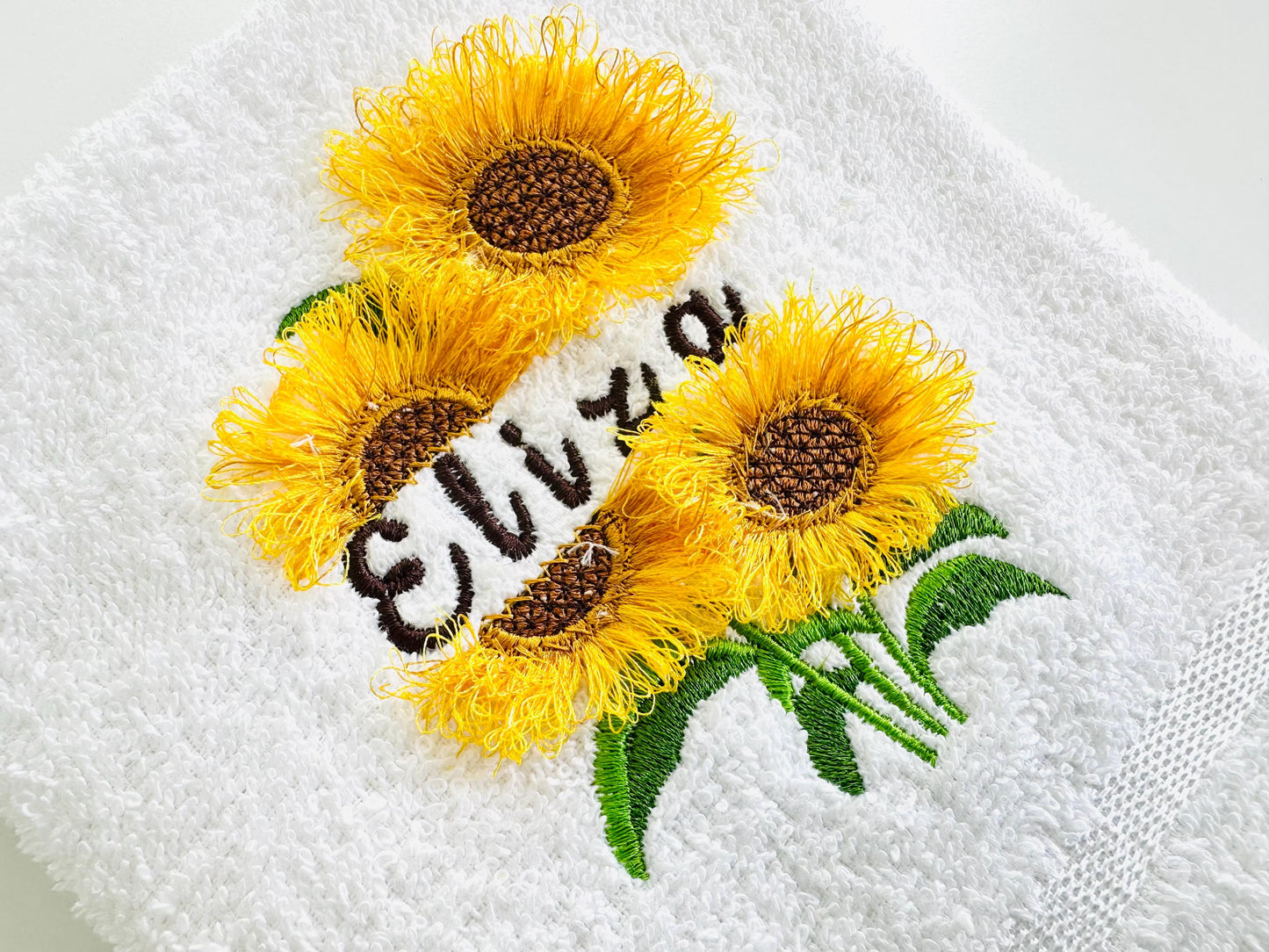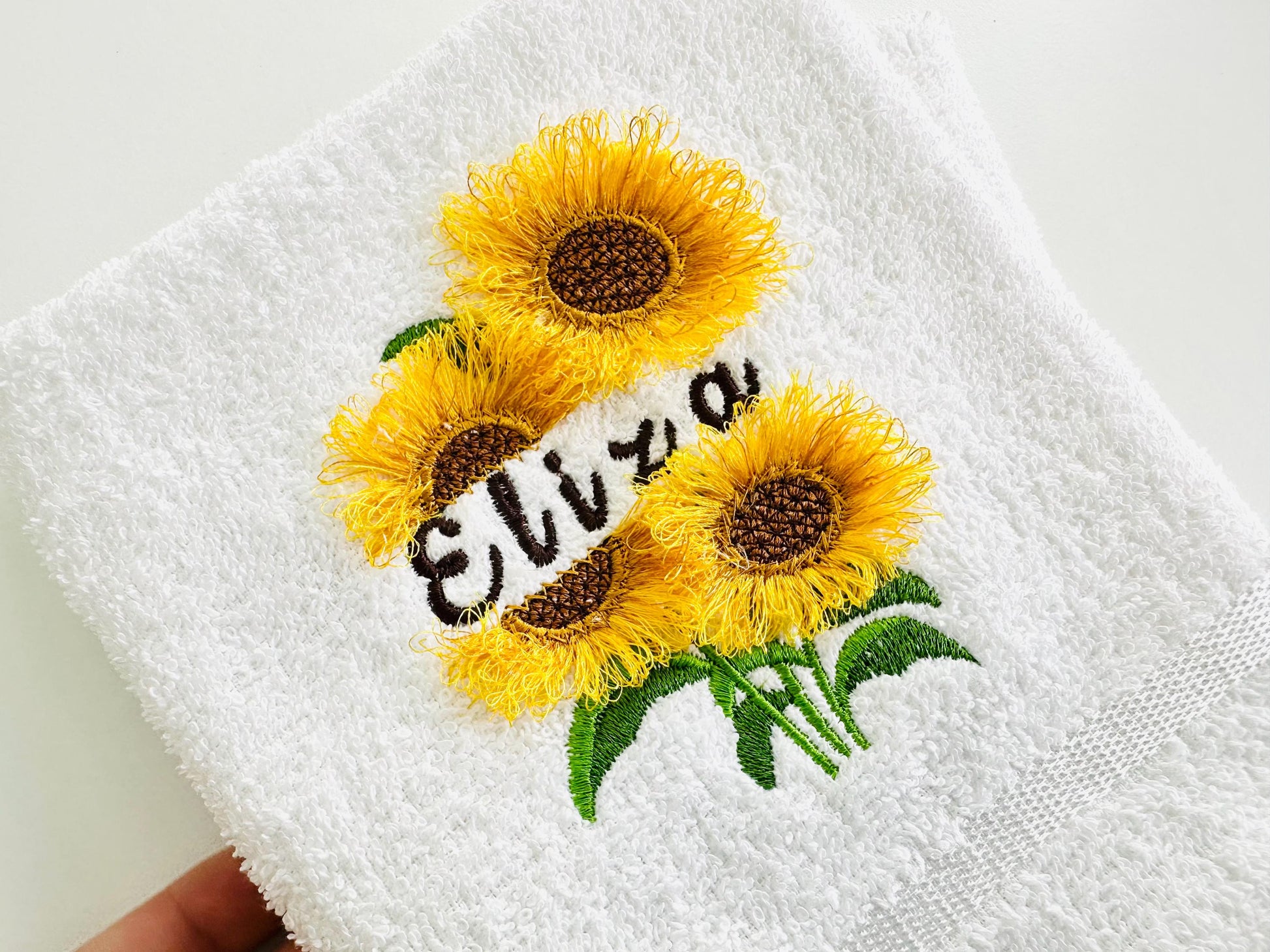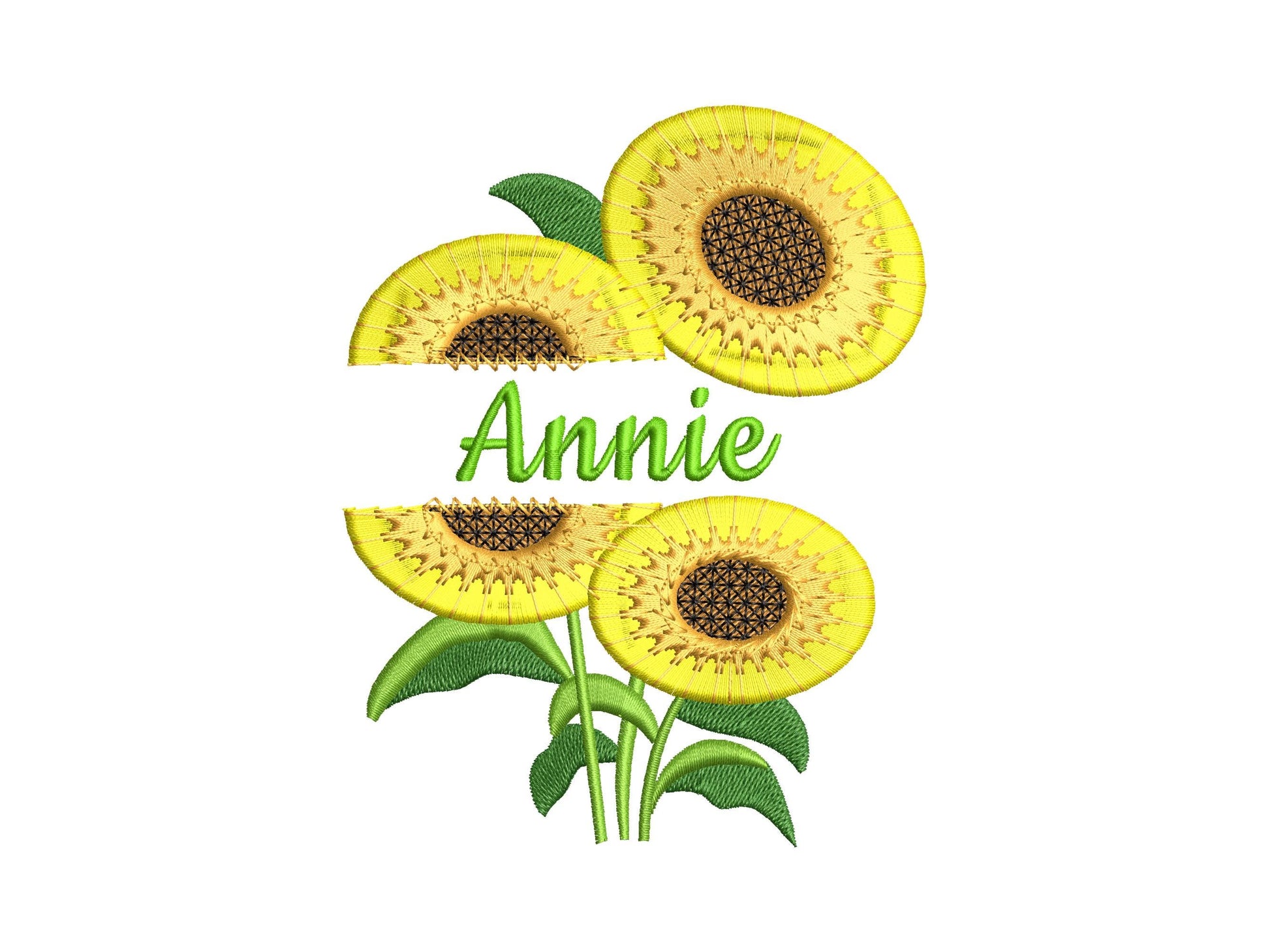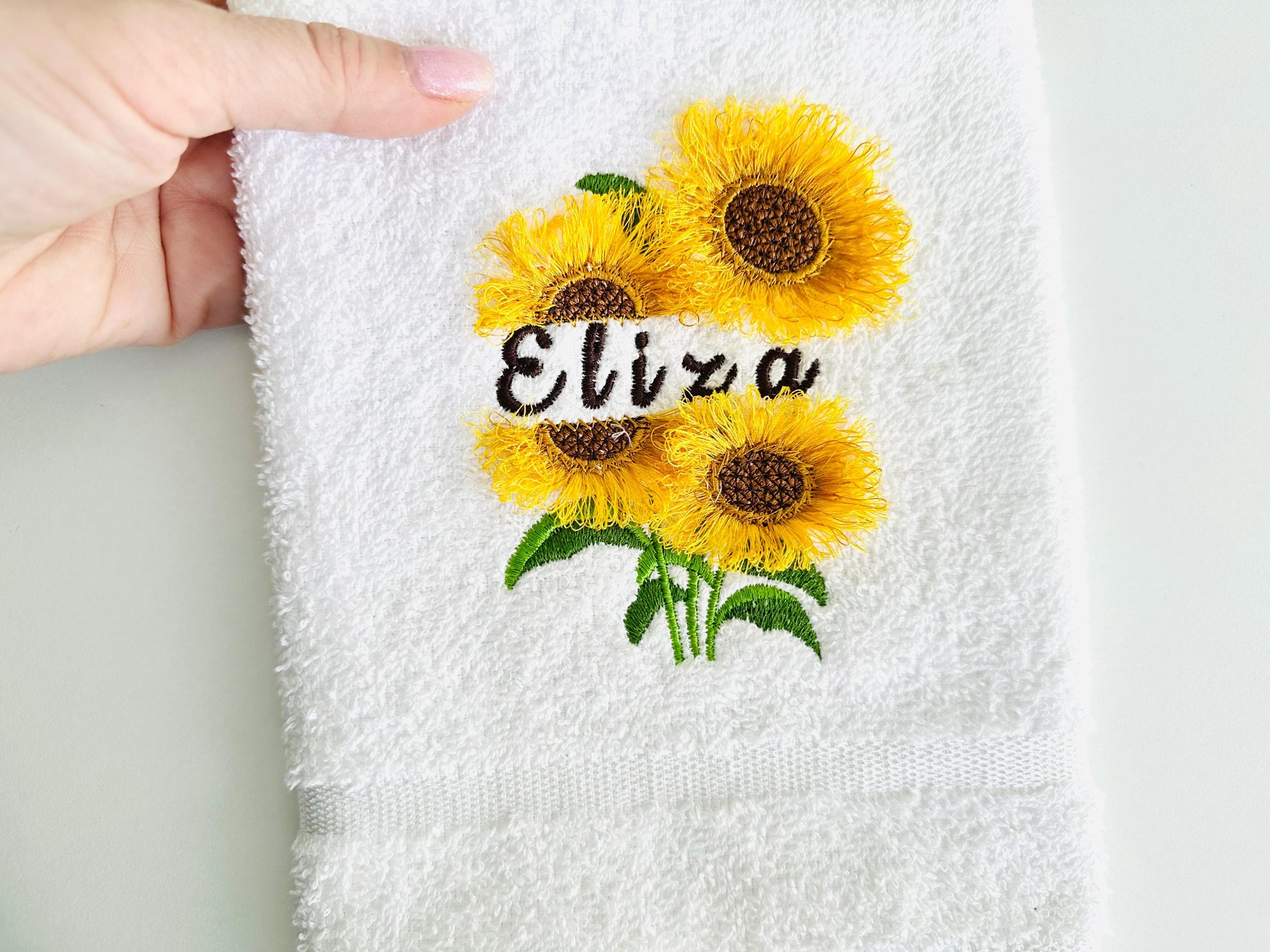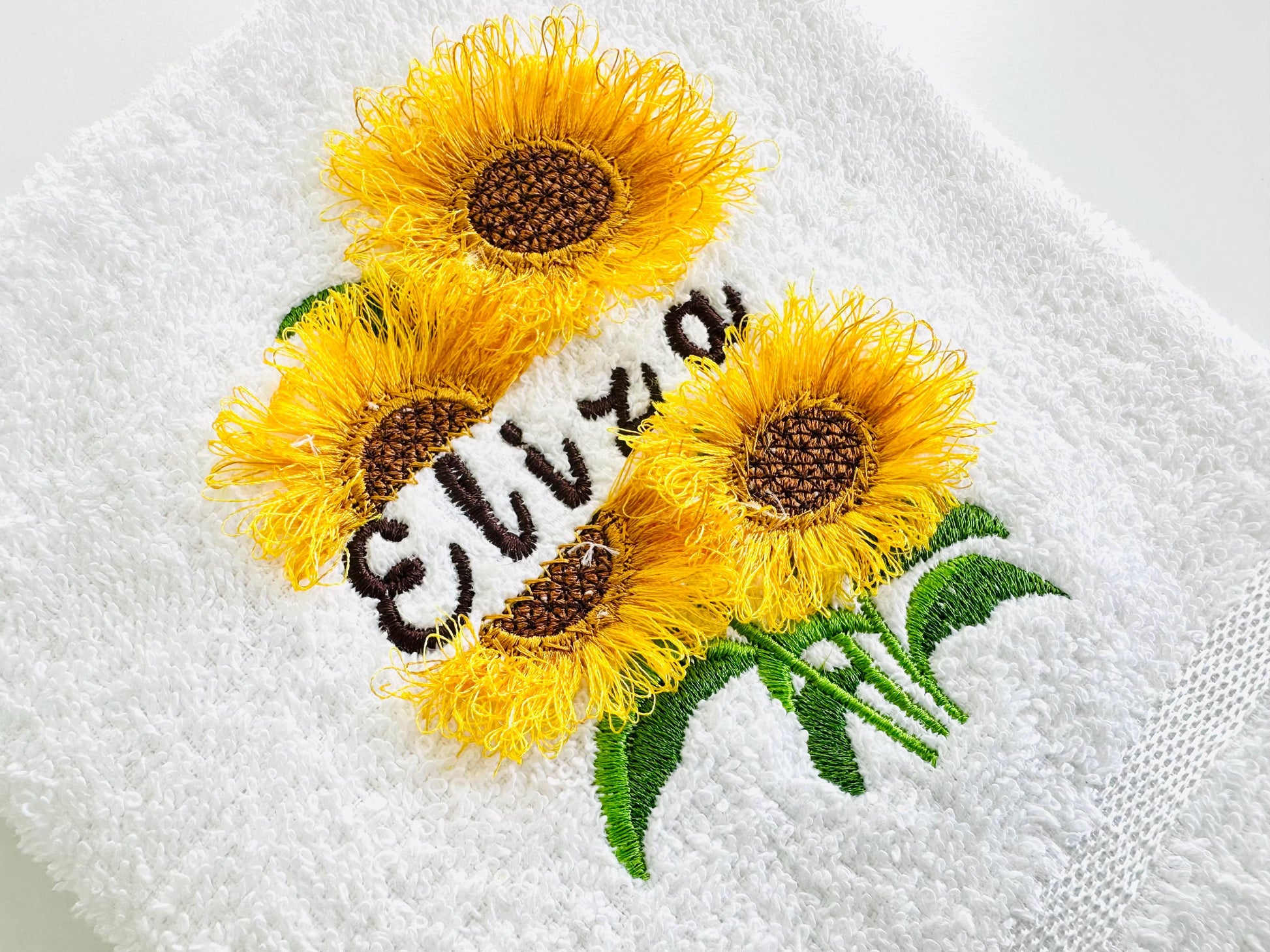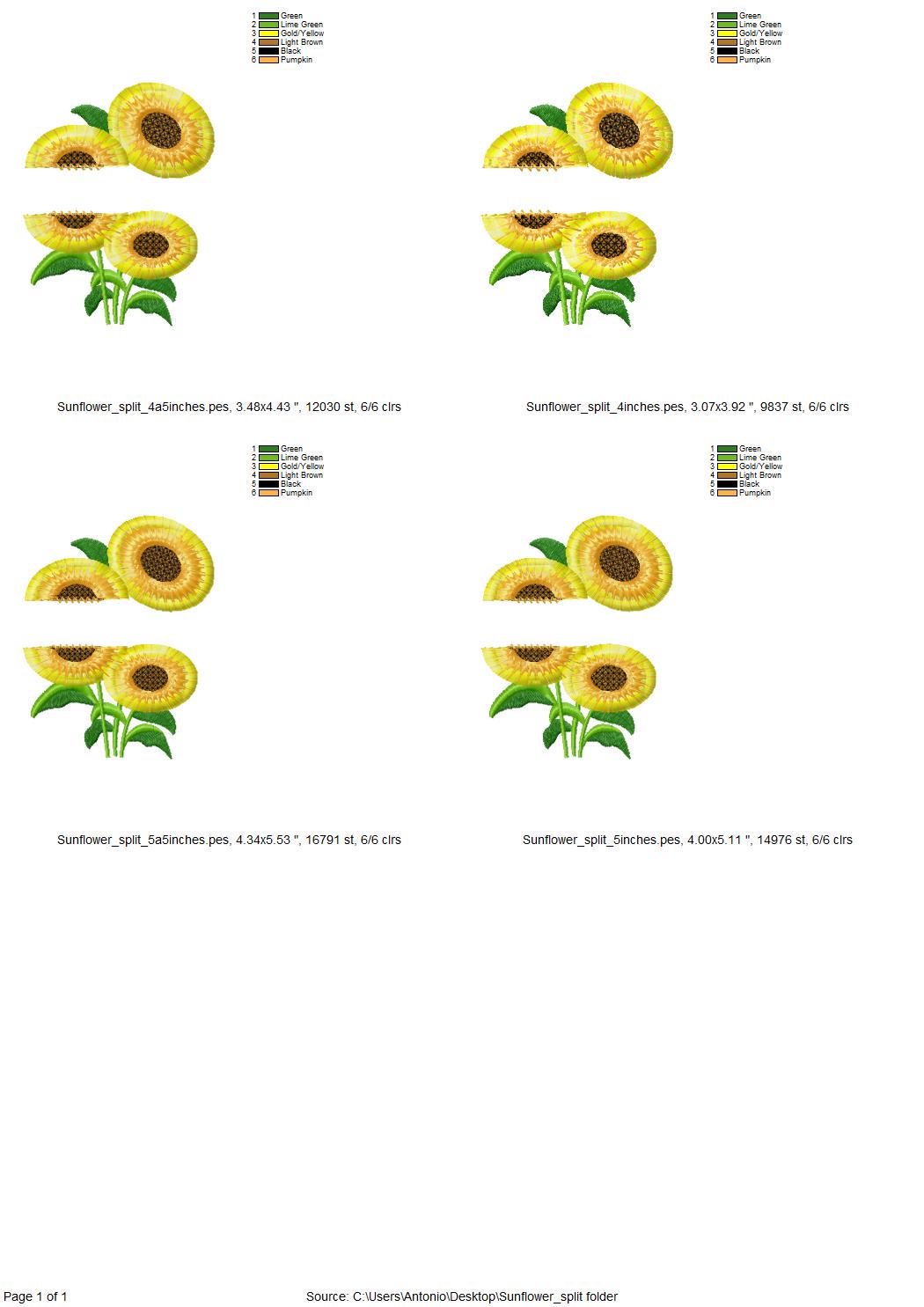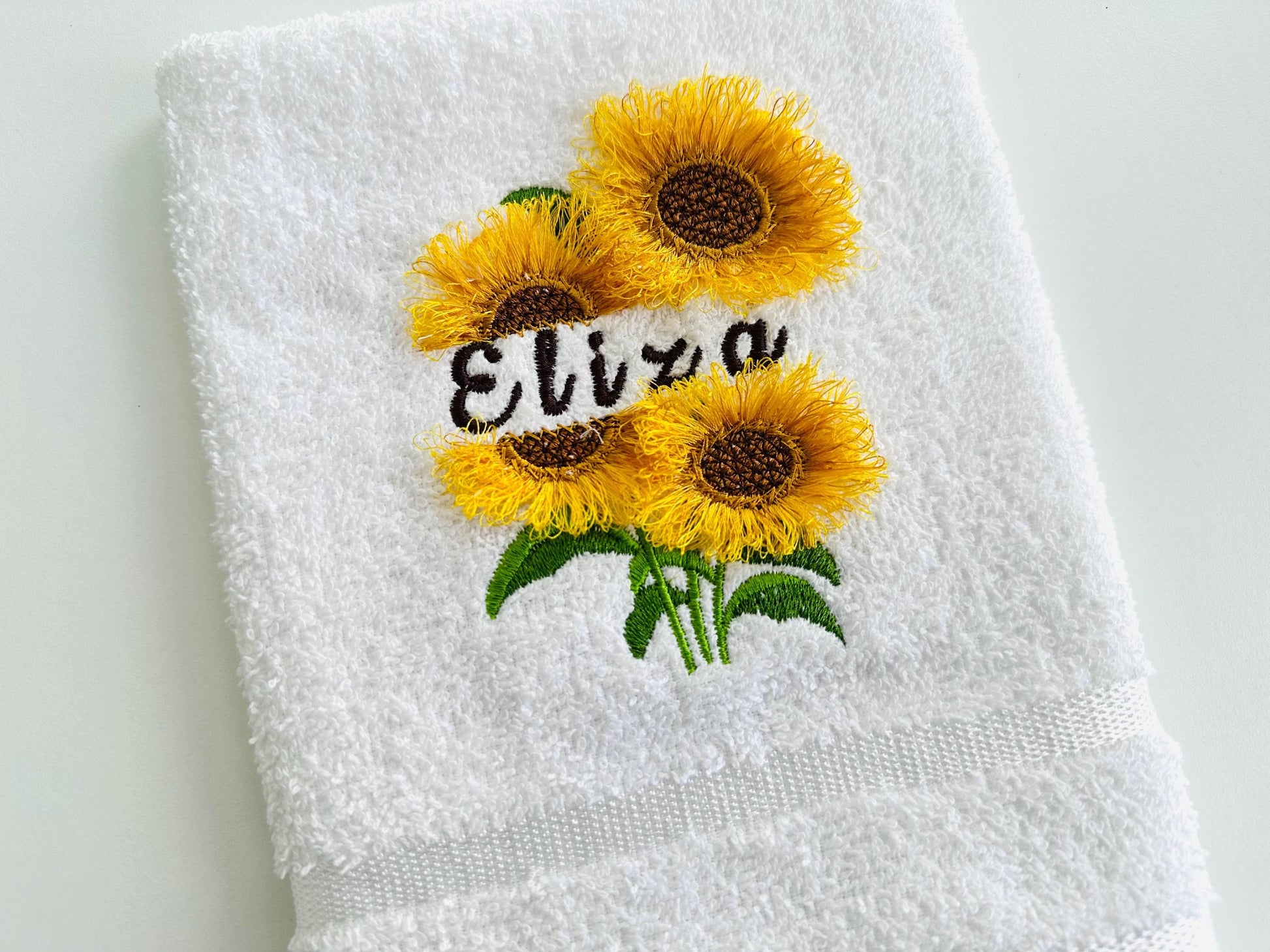
The sunflower comes in four sizes: 4, 4.5, 5 and 5.5 inches. The mini font has uppercase and lowercase letters, numbers 0 to 9 and a few signs, in 0.4, 0.6 and 0.8 inches; any font up to 1.2 inch also fits. The fringe is cut on the back and fluffed up.